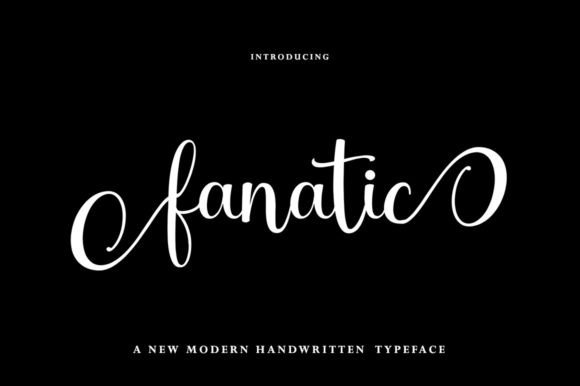
Introducing Fanatic Font - The Signature Script for Every Occasion!
In a world where individuality reigns supreme, your words carry the power to captivate and inspire. Fanatic Font, the brainchild of Anaya Studio, is not just a font; it's an artistic gateway to express your authentic self. With its elegant strokes and captivating charm, this script font transforms ordinary words into breathtaking visual masterpieces.
Discover the Allure of Fanatic Font:
- Unleash Your Creative Spirit: From crafting personalized invitations to designing captivating logos, Fanatic Font seamlessly adapts to your creative vision. Its versatility knows no bounds, becoming an extension of your artistic expression.
- Craft a Modern CV that Stands Out: Step into the spotlight with a CV that exudes professionalism and style. Fanatic Font's modern aesthetics command attention, ensuring your qualifications shine brighter than ever before. Leave a lasting impression on potential employers and open doors to exciting opportunities.
- Elevate Your Digital Designs: Elevate your digital creations to new heights with Fanatic Font. Its meticulously crafted characters add a touch of sophistication to presentations, social media posts, and website designs. Engage your audience with visually stunning content that speaks volumes.
- Create Greeting Cards that Warm Hearts: Spread joy and warmth with heartfelt greetings penned in Fanatic Font. Its charming strokes add a personal touch to every card, making them treasured keepsakes that convey your genuine emotions.
- The Perfect Font for Personal Expression: Whether you're journaling your thoughts, writing letters to loved ones, or crafting heartfelt poems, Fanatic Font becomes your trusted companion. Its graceful curves and flowing lines beautifully capture the essence of your emotions, turning words into art.
Embrace the World of Fanatic Font:
- Embark on a creative journey like no other with Fanatic Font. Its user-friendly design makes it accessible to both seasoned designers and those just starting their creative exploration. Let your imagination run wild as you discover the endless possibilities that await within this remarkable font.
- Experience the beauty of Fanatic Font today and unleash the power of your words. Transform your designs into captivating works of art, leaving a lasting impression on all who encounter them.